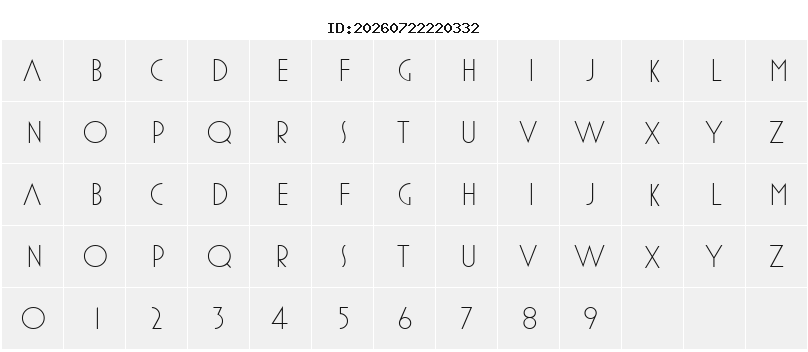
• Font Name: MostraThreeLight
• Font ID: MarkSimonson: MostraThreeLight: 2001
• Full Font Name: MostraThreeLight
• Version: Version 1.001 2002
• PostScript Name: MostraThreeLight
• Designer: Mark Simonson
• Manufacturer: Mark Simonson
About MostraThreeLight.ttf
MostraThreeLight.ttf is a modern, elegant sans-serif font designed for ultimate readability and visual harmony. Perfect for branding, headlines, web design, and print materials.